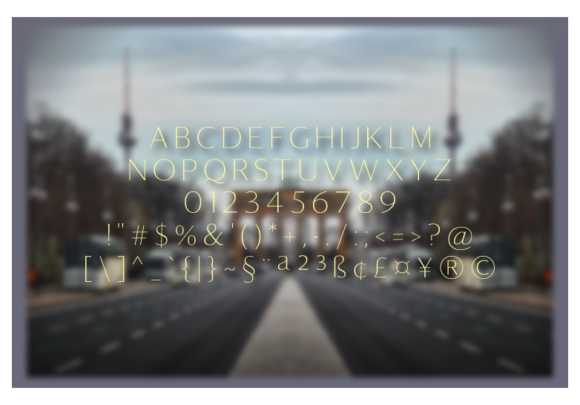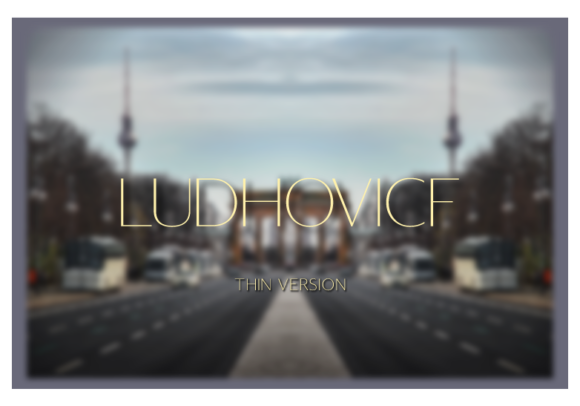
Ludhovicf Thin Font
About Ludhovicf Thin Font
Ludhovicf blends traditional Spanish architectural elements with modern, minimalist design. Its unique cut-ins & curves make it a true standout!